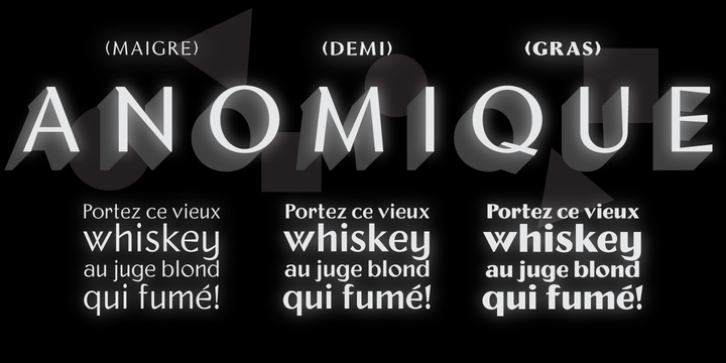
Anomique is a revival of a French mid-century sans-serif designed by Enric Crous-Vidal in the early 1960s. Crous-Vidal rejected the homogenization of European modernist type and instead looked to the “seductive” influence of what he called the “Latin Arabesque.”
Exaggerated calligraphic strokes and a lively energy showcase Anomique’s unique influence, while careful balance and an expanded latin character set make it suitable for both display and text settings in the digital age.
While some aspects of the design have been updated for contemporary usage, OpenType provides access to original alternate designs, as well as a new set of oldstyle figures.